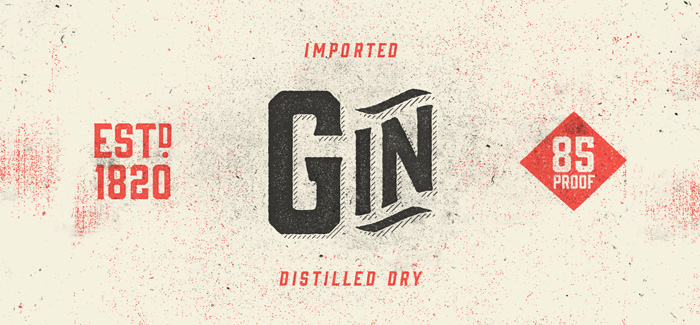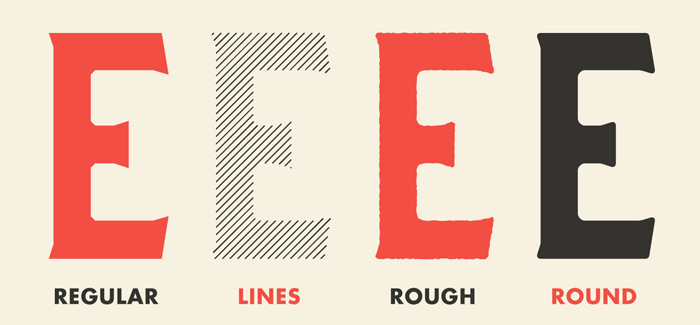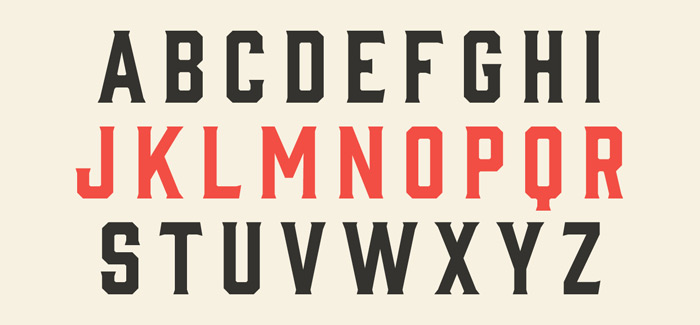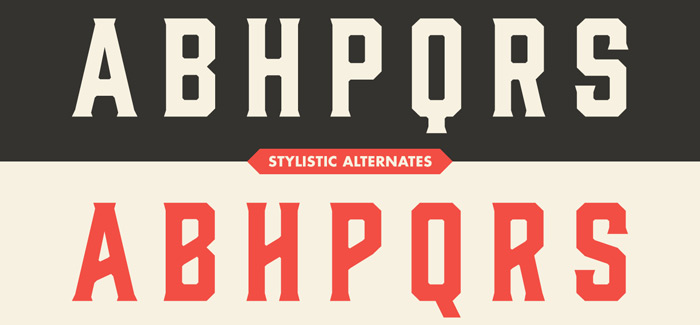
Gin font
Gin font by Mattox Shuler / Hold Fast Foundry (see also his Bourbon font and Abolition font) is a vintage condensed serif inspired by the classic gin and whisky bottles lettering. Gin font is distilled in four variations, each coming in two typefaces – upright and oblique. Thus you are provided with: Regular, Oblique, Lines, Lines Oblique, Rough, Rough Oblique, Round, and Round Oblique to experiment with different typography design cocktails. Specialty additives include Stylistic Alternates and Multiple Language Support.